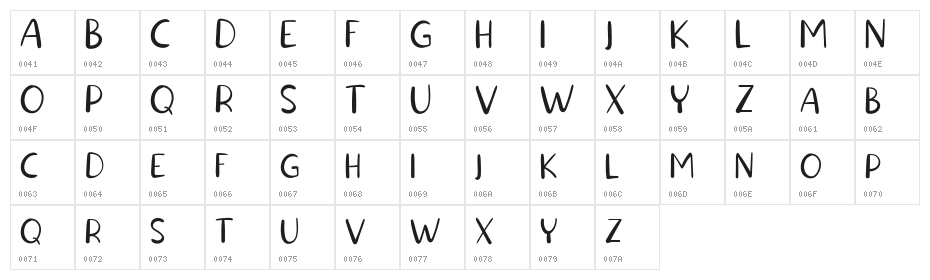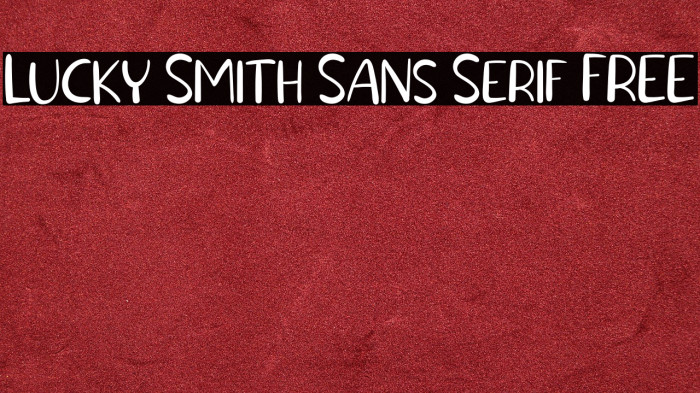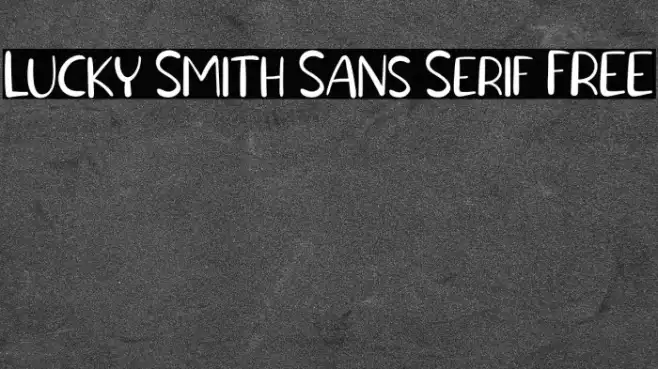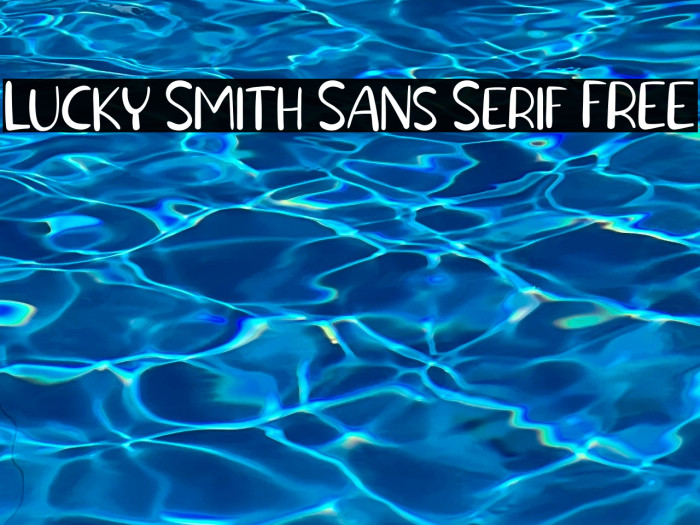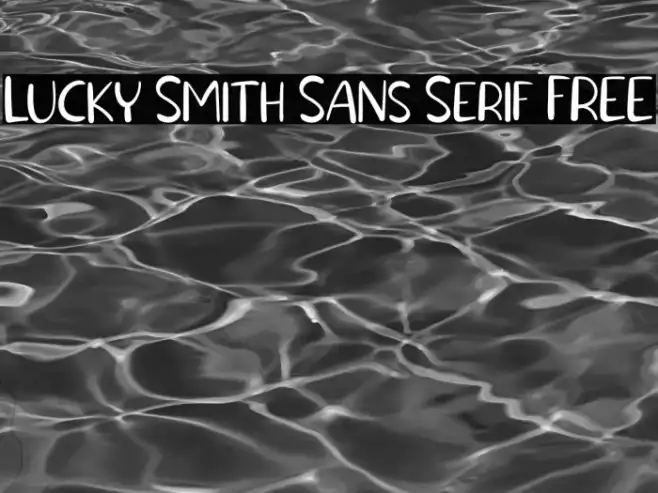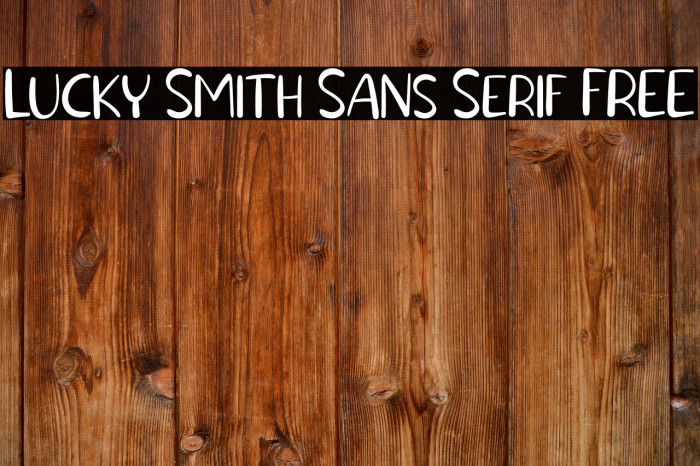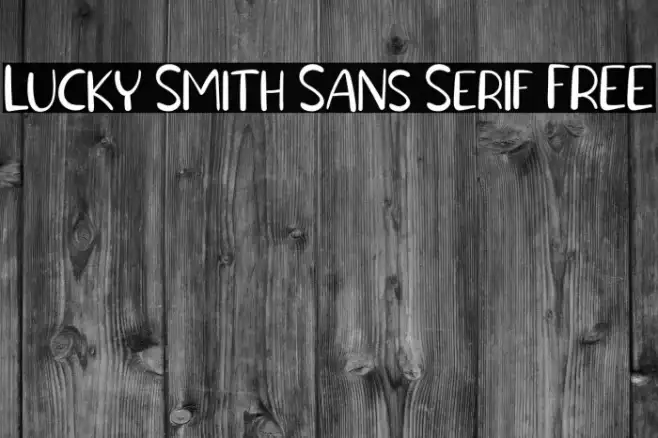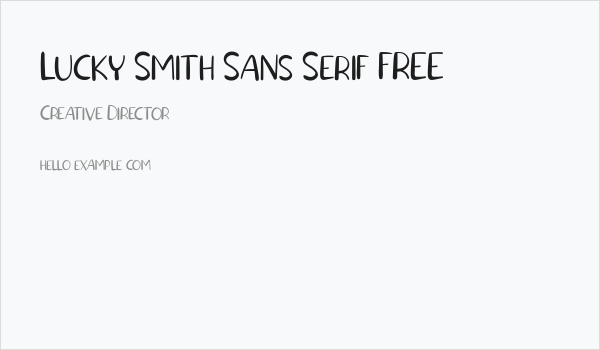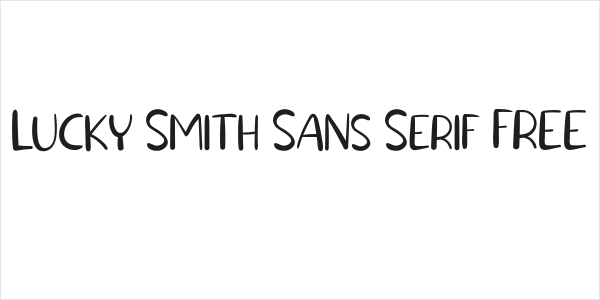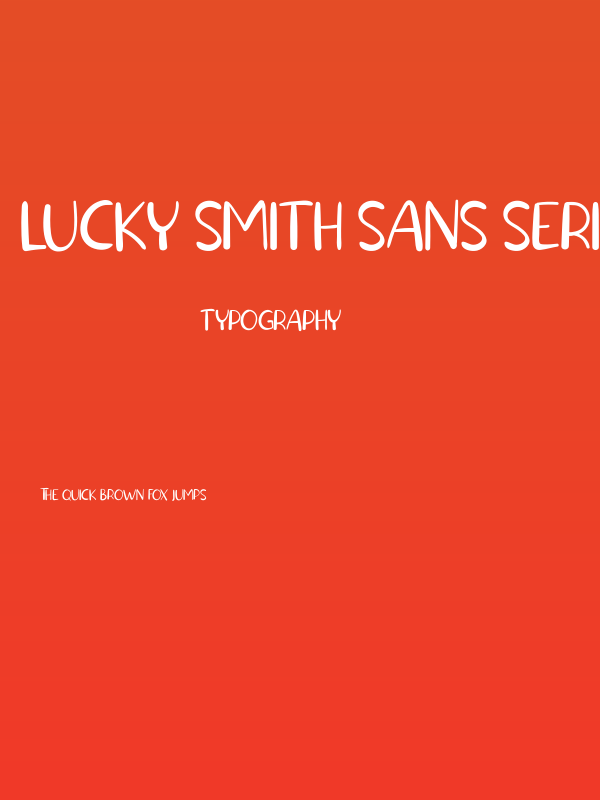
Lucky Smith Sans Serif FREE Font
Lucky Smith Sans Serif FREE Description
This font features a playful and modern sans-serif style with a hand-drawn appearance. The letters are slightly irregular, giving it a casual and friendly look. The strokes are smooth and rounded, providing a soft and approachable feel. It maintains a consistent weight throughout, with moderate spacing between characters. The overall design is clean and simple, making it versatile for various applications. Its unique charm lies in the subtle quirks of each letter, which add personality without compromising readability.
| Use Case | Headlines, Logos |
| Proposed Projects | Ideal for children's books, casual branding, greeting cards, and playful social media graphics. |